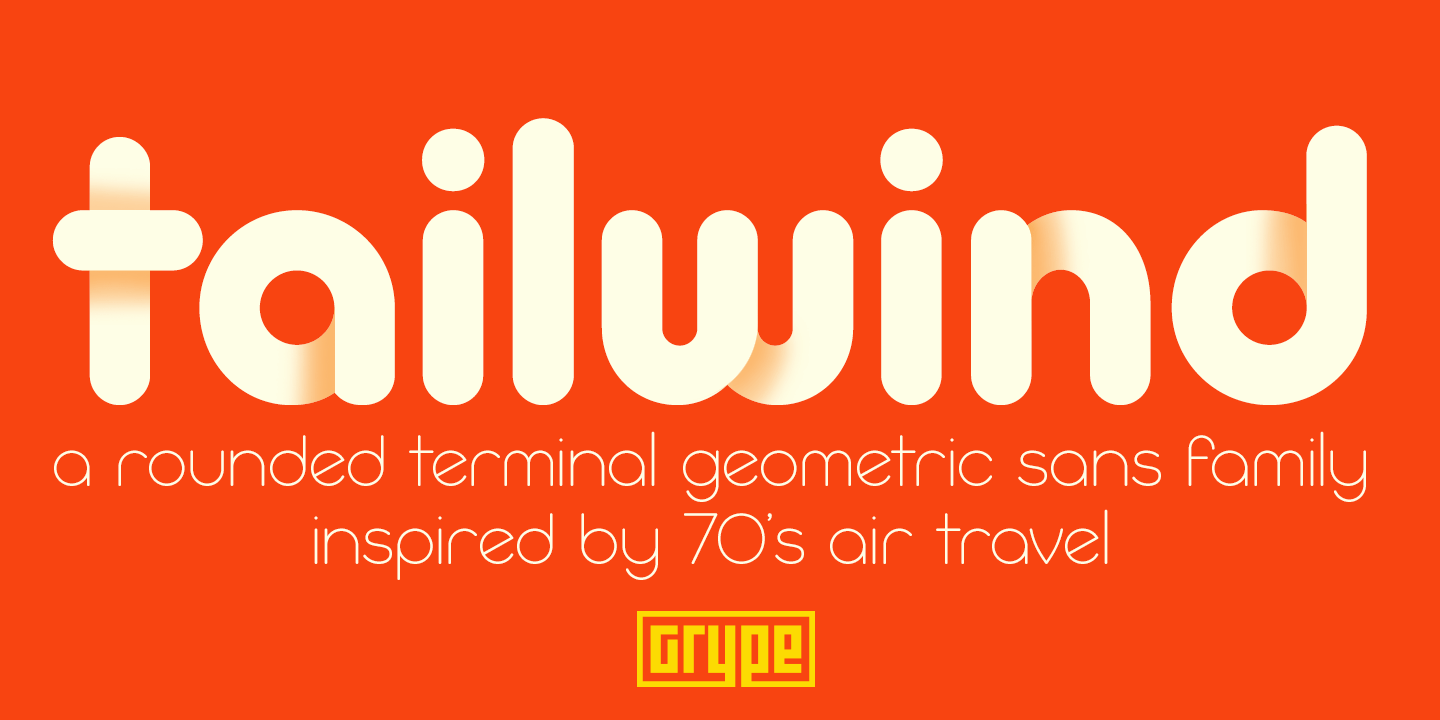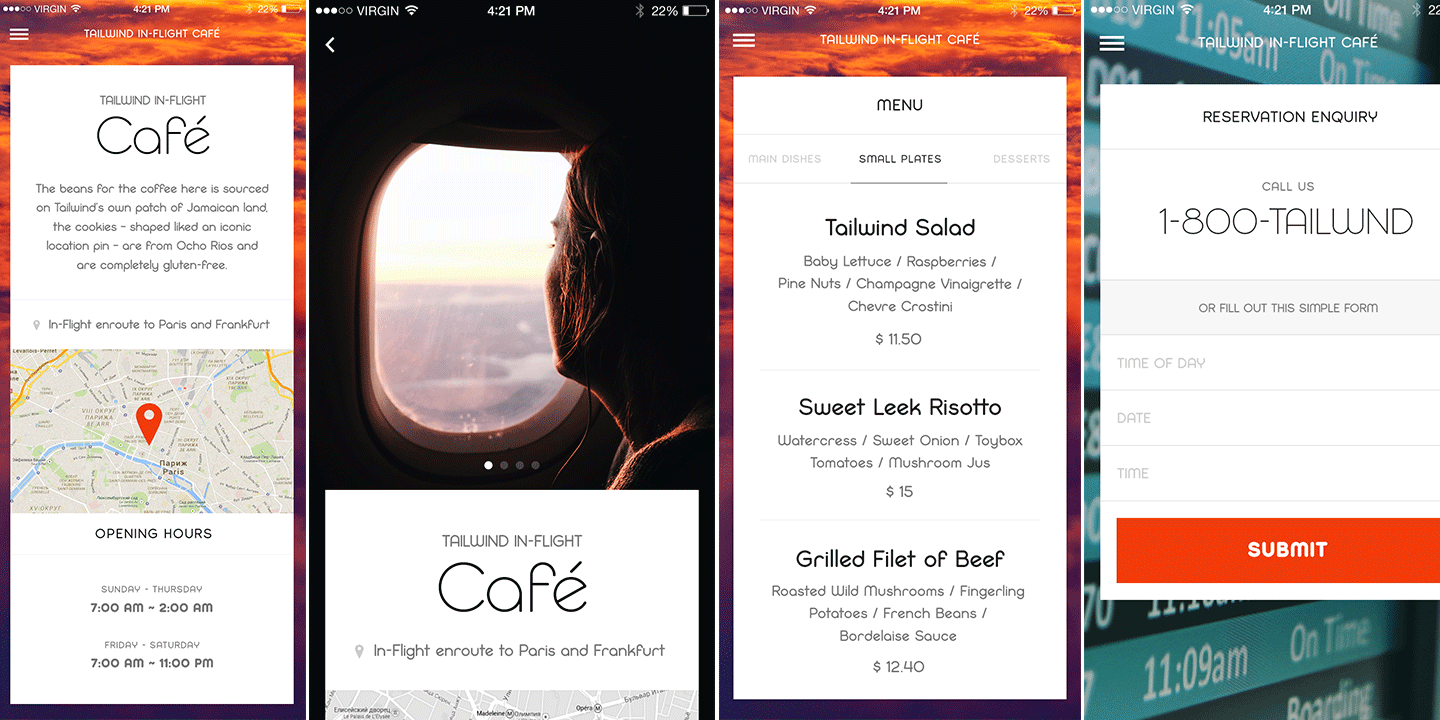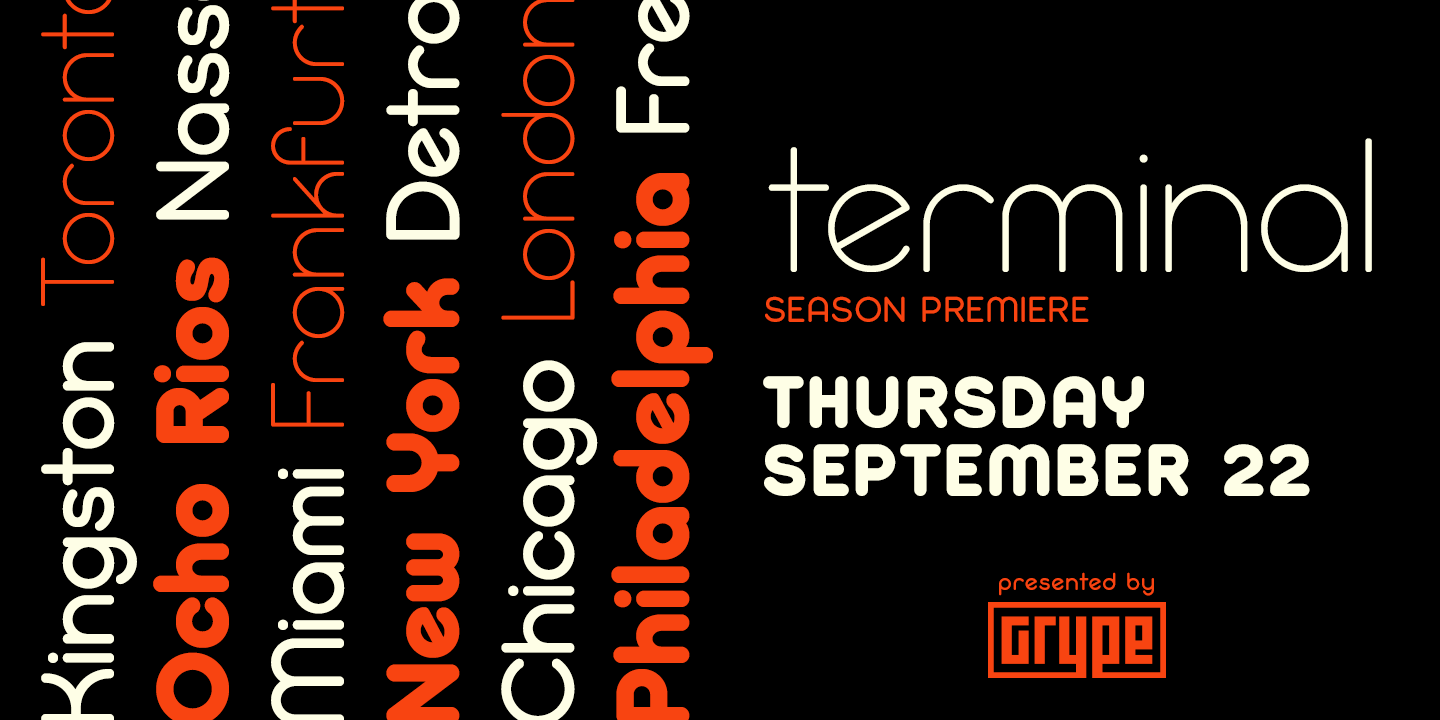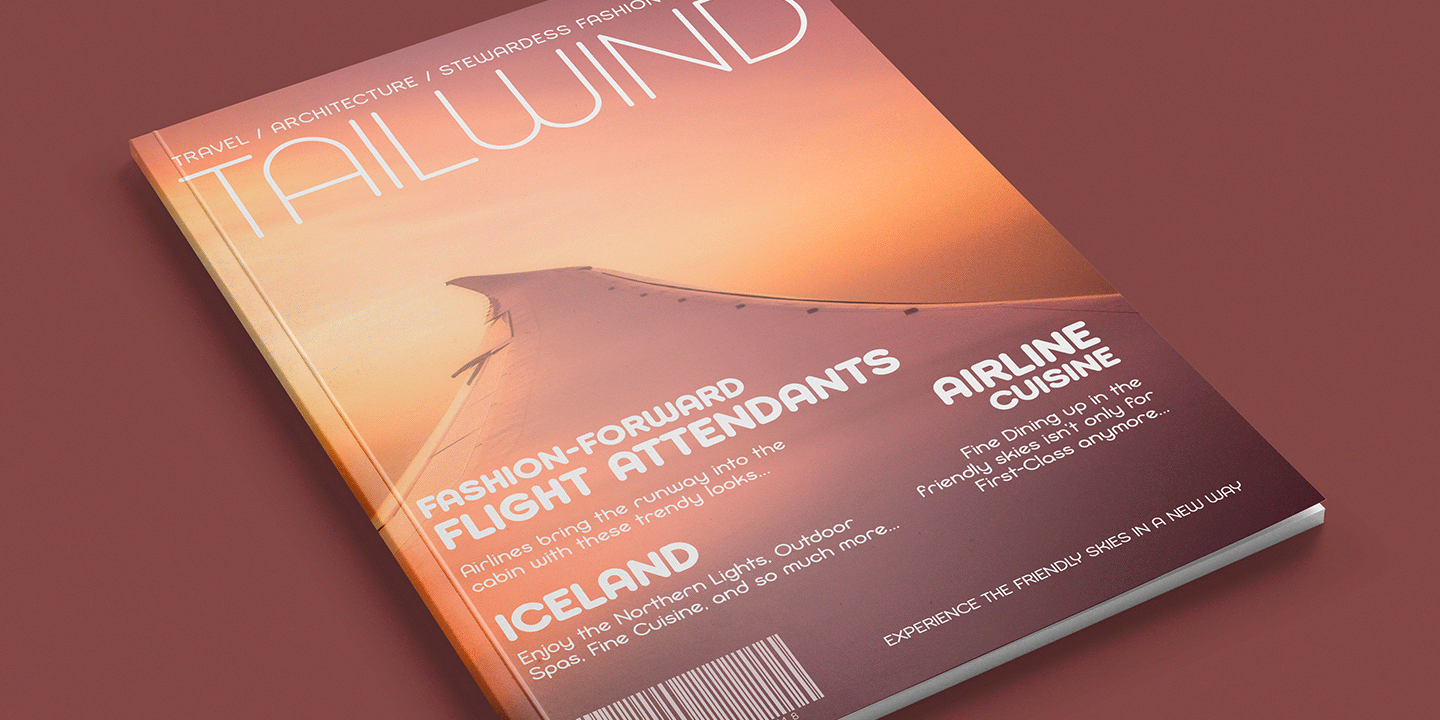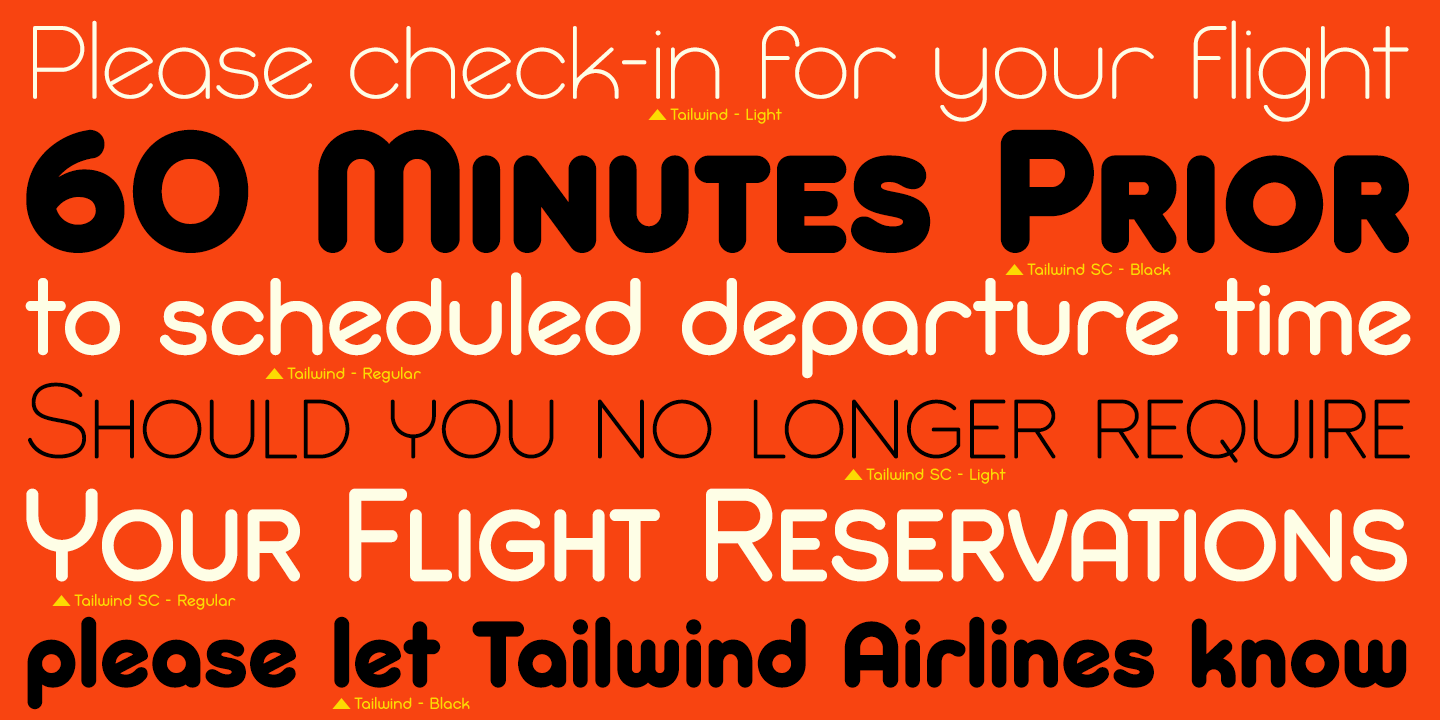
Tailwind
The world of aviation is filled with clean and iconic logotypes, yet some of the earlier logotypes were friendly and simple. The Tailwind family finds its origin of inspiration in an early Air Jamaica company logo, and from there is expanded into a small but comprehensive font family.
Tailwind celebrates the typographic stylings of the 70's, with the soft rounded terminals and open geometric feel, transcending its brand inspired origin to give birth to a family that feels both retro and modern. It inherited the friendly stylings of the mostly lowercase logo that inspired it, and goes on to include a full standard character set with expansive international support of latin based languages, small caps styles, and three weights jumping from light to regular to a heavyweight black. This family is ready to chart a course for your designs towards that of a modern, comfortable appeal.